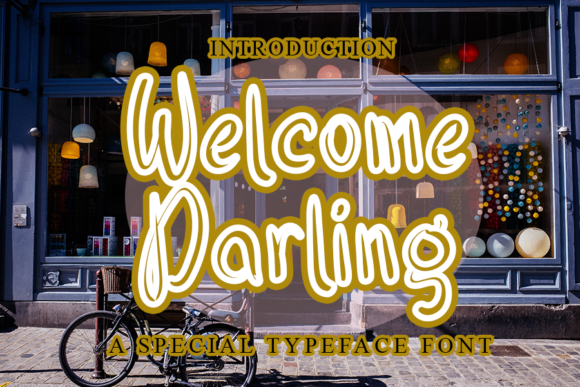
Welcome Darling Font
Welcome Darling is a fun display font with a unique style that brings creativity to life. Whether you're designing a website, creating social media graphics, or working on a personal project, this font can help your ideas stand out. Its playful and eye-catching design makes it perfect for adding personality and flair to any visual content.
What Makes Welcome Darling Special?
Welcome Darling is more than just a fontβit's a creative tool that adds character to your work. The font features bold, rounded letters with a whimsical touch that feels both modern and nostalgic. Itβs designed to catch attention and make a statement, making it ideal for use in headlines, logos, and other prominent text elements.
One of the standout features of Welcome Darling is its versatility. It works well in both digital and print formats, allowing you to use it across a variety of platforms. Whether you're crafting a greeting card, designing a poster, or building a brand identity, this font can adapt to fit your needs.
When to Use Welcome Darling
Welcome Darling is best suited for projects where a lively and friendly tone is desired. Here are some practical scenarios where it shines:
- Social Media Content: Use Welcome Darling for Instagram captions, Facebook posts, or Twitter updates to add a cheerful vibe.
- Website Headers: This font can be used as a header font to draw users in and create a memorable first impression.
- Event Invitations: From birthday invites to wedding announcements, Welcome Darling adds a touch of fun and warmth.
- Marketing Materials: For flyers, brochures, or promotional materials, this font helps your message stand out in a crowd.
- Personal Projects: Whether it's a handmade scrapbook, a DIY craft, or a blog post, Welcome Darling can elevate your personal expression.
Why Choose Welcome Darling?
There are several reasons why Welcome Darling might be the right choice for your next project. First, its unique style allows your content to feel more engaging and approachable. Second, it's easy to read at a glance, which is important for quick consumption of information.
Additionally, Welcome Darling supports a wide range of uses, from casual to professional. Its clean lines and balanced proportions make it suitable for both minimalist designs and more elaborate layouts. This flexibility means you can use it in various contexts without worrying about compromising readability or aesthetics.
Getting Started with Welcome Darling
If you're new to using display fonts like Welcome Darling, here are some tips to help you get started:
- Test in Different Formats: Try using Welcome Darling in different applications such as Photoshop, Canva, or Microsoft Word to see how it looks in various settings.
- Pair with Complementary Fonts: Combine Welcome Darling with a more traditional serif or sans-serif font for a balanced look.
- Use It Sparingly: While it's eye-catching, avoid overusing Welcome Darling in large blocks of text. Save it for headings and key phrases.
Real-World Applications
Welcome Darling has been used successfully in a variety of real-world applications. For instance, small business owners have used it in their branding to create a friendly and inviting image. Bloggers have incorporated it into their headers to make their content more engaging. Educators have even used it in classroom materials to make learning more interactive and fun.
One example is a local bakery that used Welcome Darling in their logo and signage. The font helped create a warm and welcoming atmosphere that resonated with customers. Another example is a blogger who used the font in her newsletter title, which made her content feel more personal and approachable.
Considerations Before Using Welcome Darling
Before deciding to use Welcome Darling, there are a few things to keep in mind:
- Readability: While the font is stylish, ensure it's readable in the context where it will be used.
- Compatibility: Check if the font works well across different devices and platforms.
- Consistency: Use the font consistently to maintain a cohesive brand identity or design theme.
- Balance: Pair it with other fonts to create a visually appealing and balanced layout.
Conclusion
Welcome Darling is a versatile and stylish font that can enhance your creative projects in many ways. Whether you're a beginner or an experienced designer, this font offers a fresh and fun approach to typography. By understanding its strengths and limitations, you can use it effectively to bring your ideas to life and make your content more engaging and memorable.